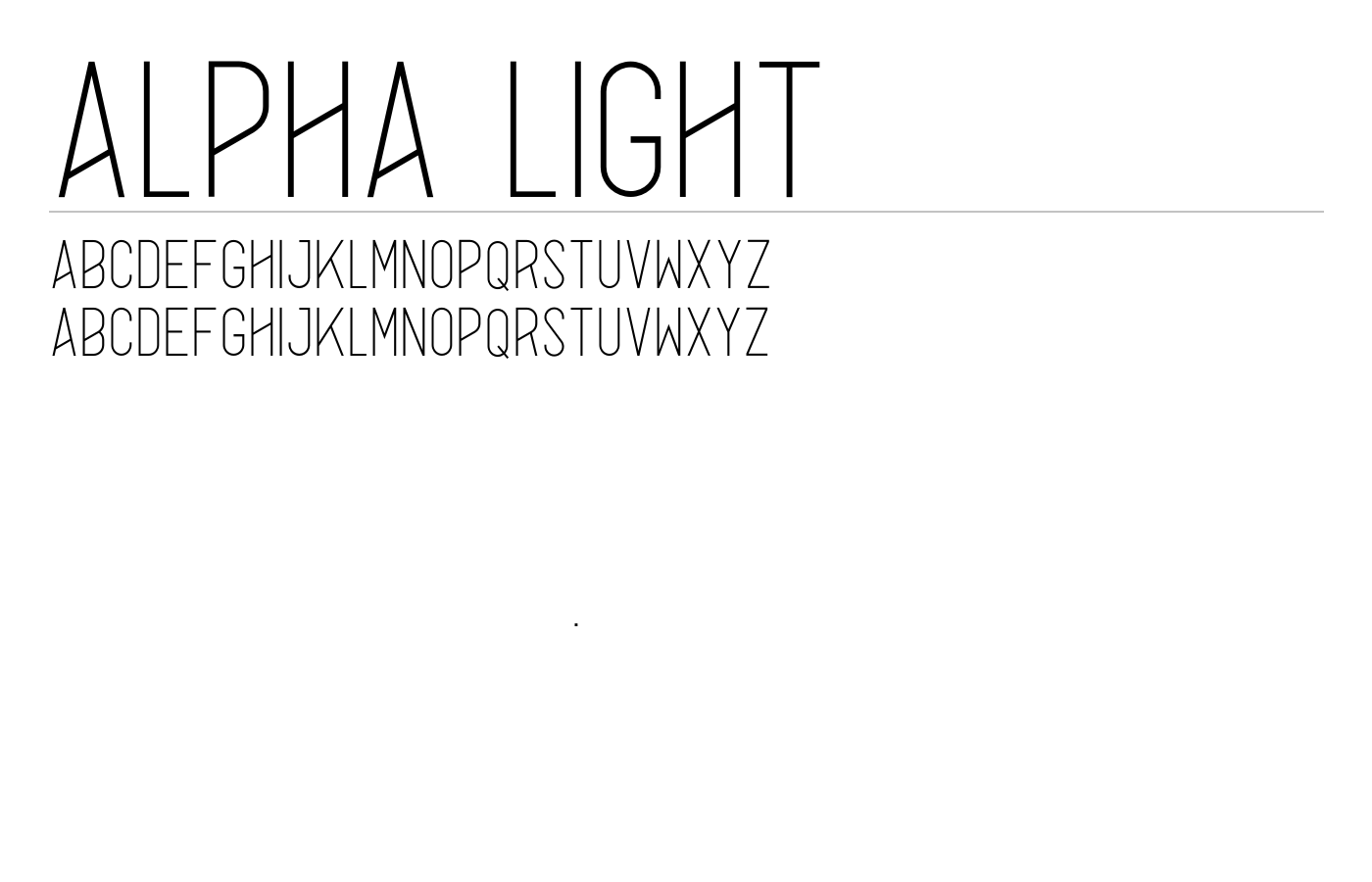
Alpha Light is an ultra-thin, condensed sans serif font characterized by its delicate lines and tall, narrow letterforms. Its minimal stroke weight and geometric shapes give it a modern, elegant feel, making it ideal for stylish headlines, fashion branding, or sleek editorial designs where a clean, refined look is desired. This font’s unique verticality and minimalism help convey sophistication and contemporary simplicity.
Alpha Font
About Alpha Font
| Font family | Alpha Font |
| Designer | Callum Finn |